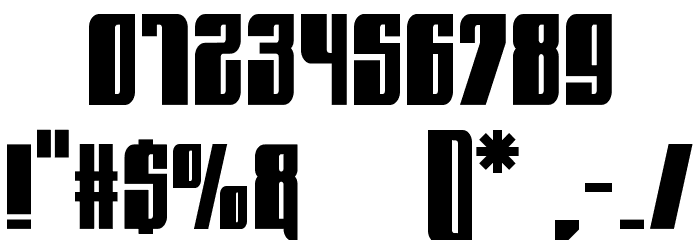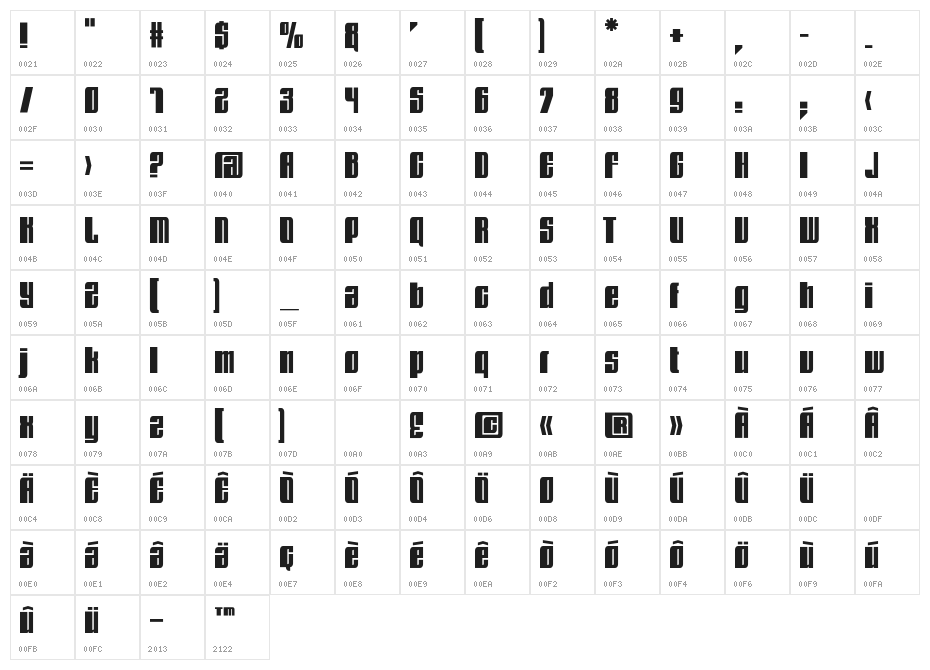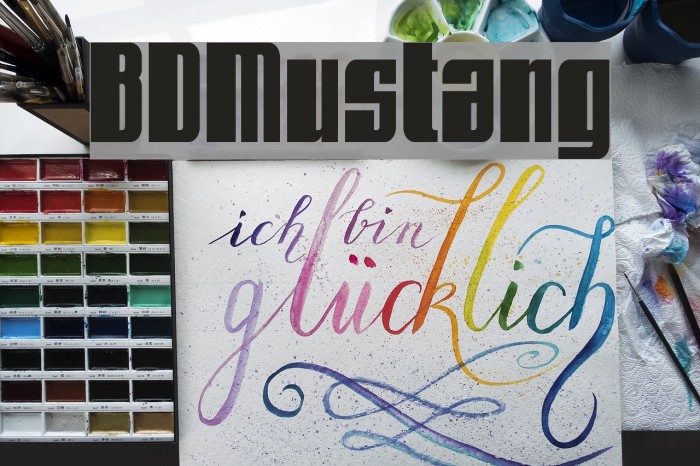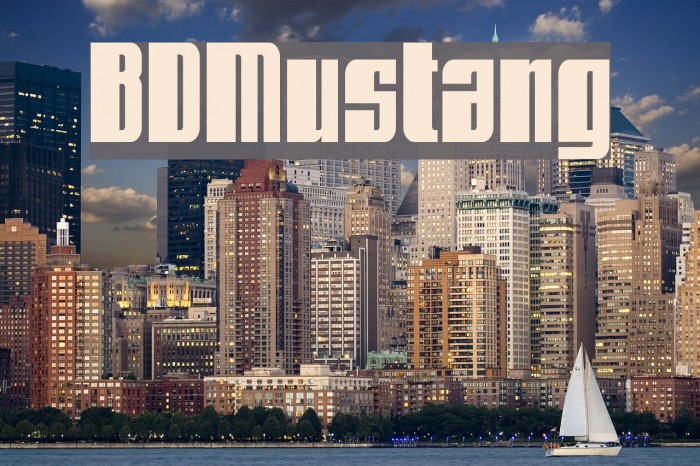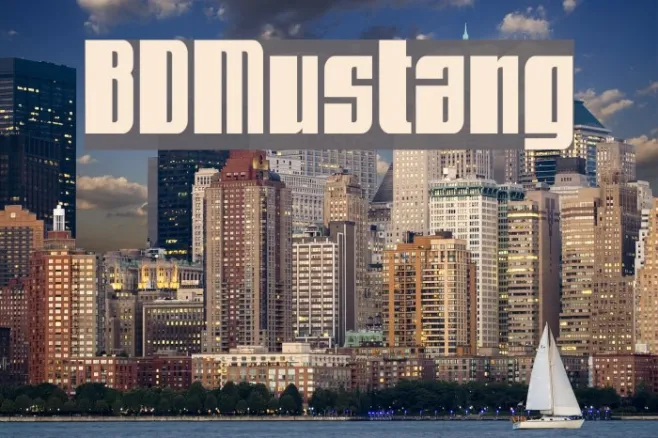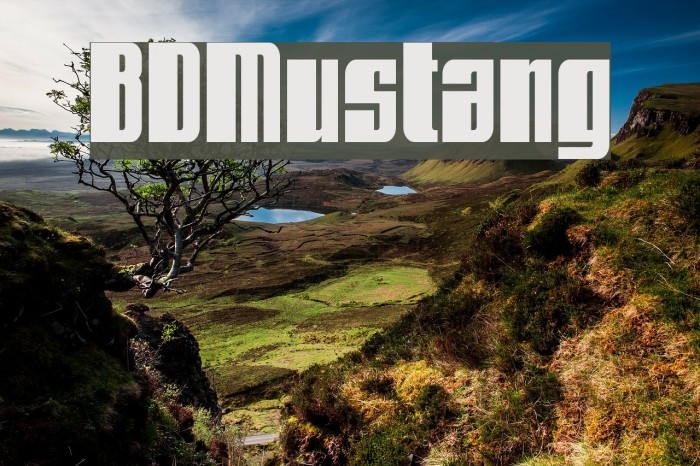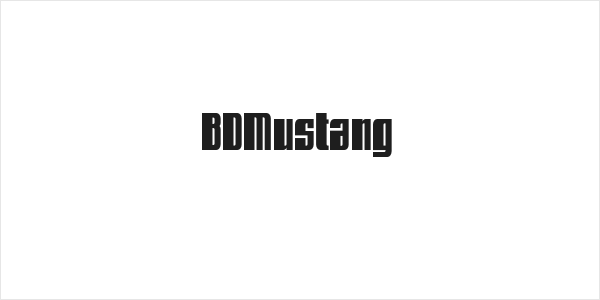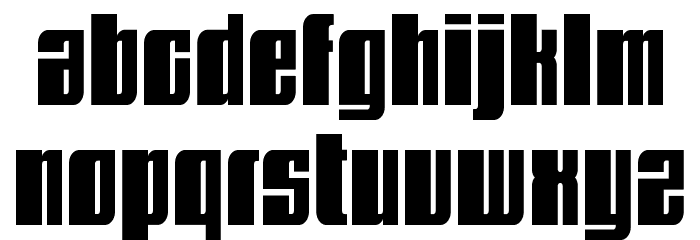
BDMustang Font
BDMustang Description
This font features a bold and impactful design, characterized by its strong geometric shapes and thick strokes. The uppercase and lowercase letters maintain a consistent width, creating a uniform appearance. The characters are tightly spaced, enhancing the compact and robust feel of the typeface. The numbers and special characters follow the same bold style, ensuring cohesive visual harmony across all elements. The font's design is modern and assertive, making it ideal for projects that require a strong visual presence.
Proposed ProjectsIdeal for posters, headlines, branding, and logo design where a strong impact is desired.